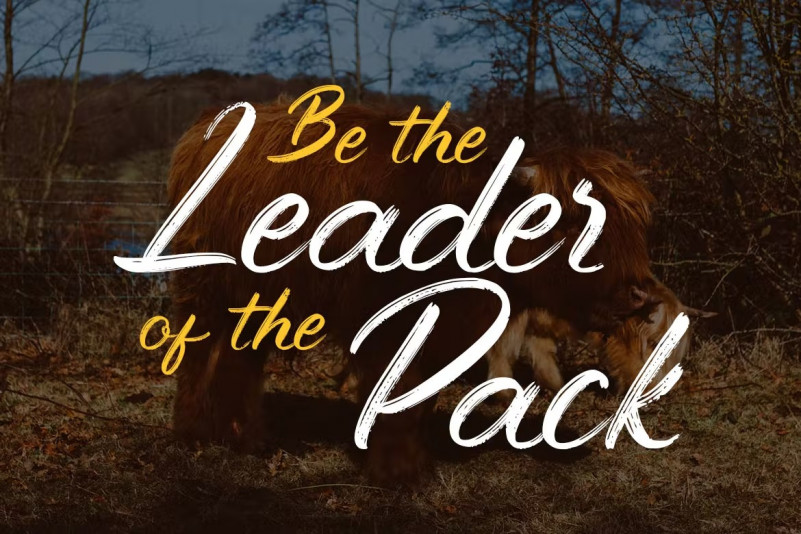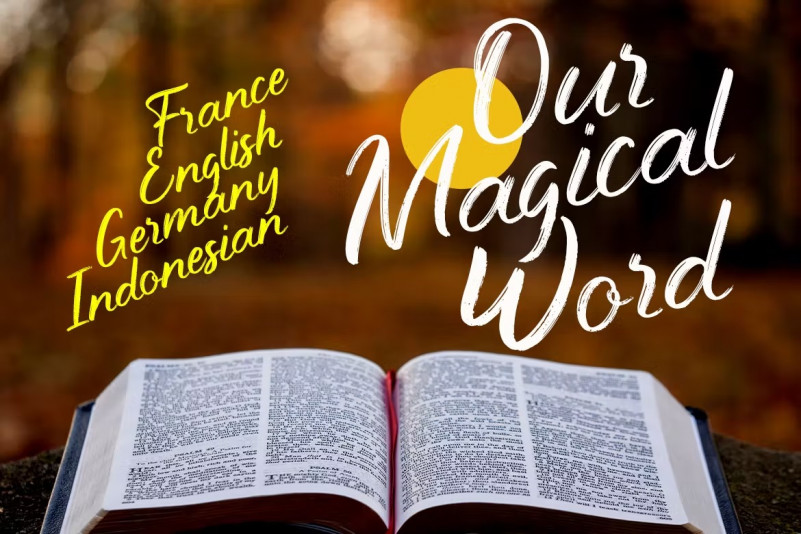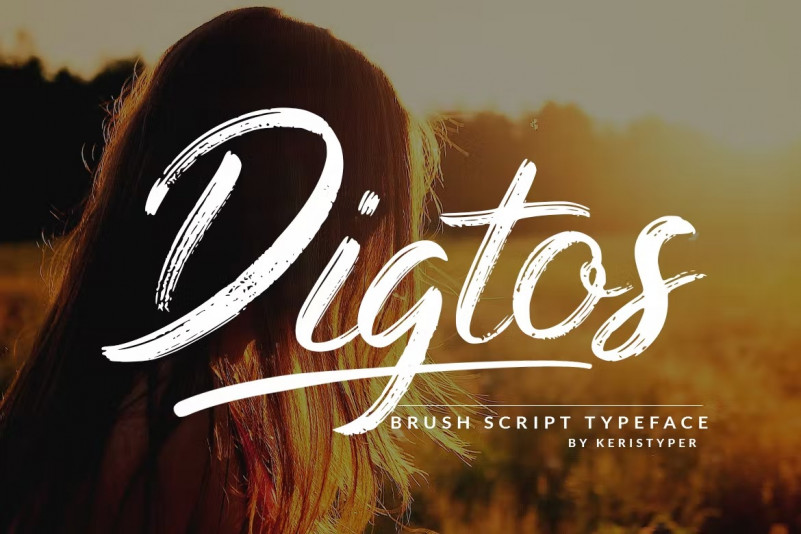
Digtos Font
Introducing, Digtos Brush a masculine display font that is made with hand lettering with the brush pen. This type of font is perfectly made to be applied especially in logo, and the other various formal forms such as invitations, labels, logos, magazines, books, greeting/wedding cards, packaging, fashion, makeup, stationery, novels, labels, or any type of advertising purpose.
Multilingual support: Afrikaans, Albanian, Catalan, Danish, Dutch, English, Estonian, French, Finnish, German, Icelandic, Indonesian, Italian, Malay, Norwegian, Portuguese, Spanish, Swedish, Zulu, and many more.